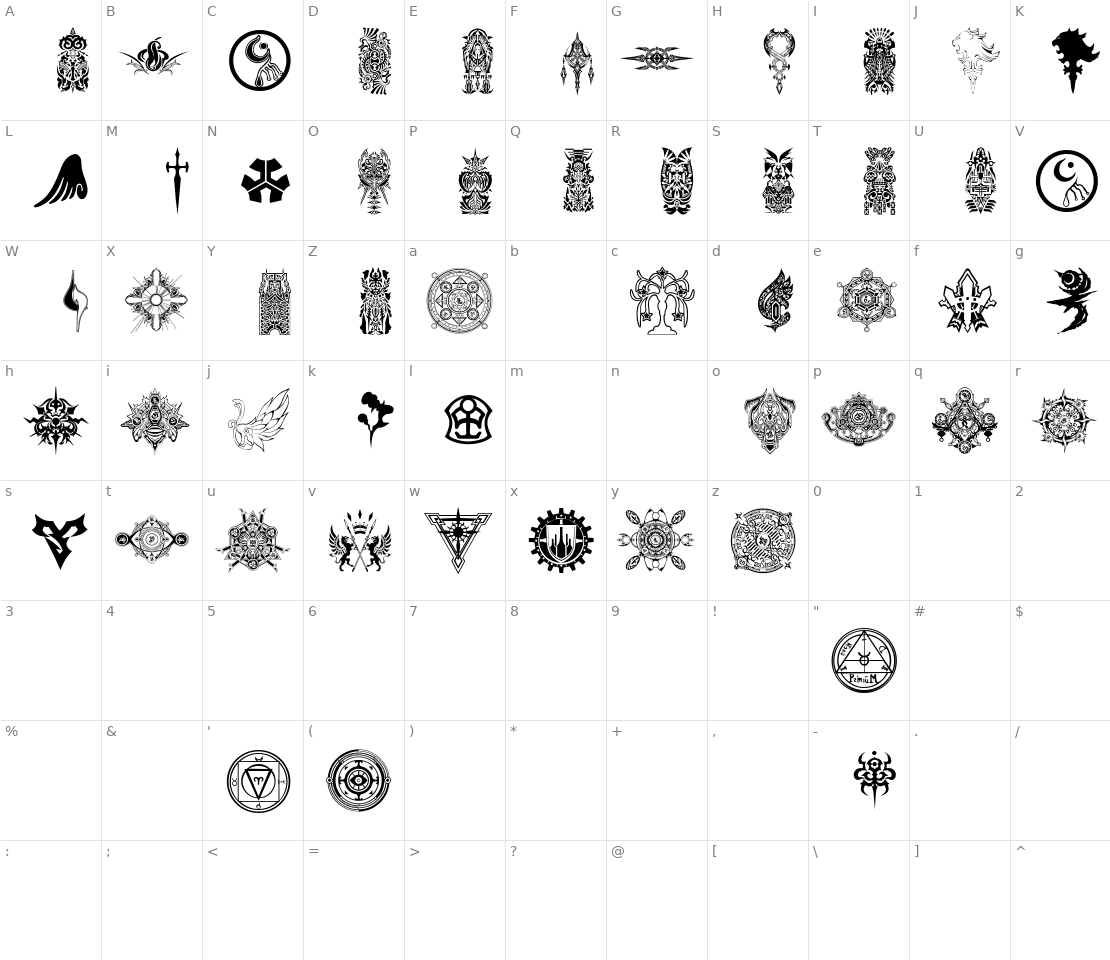
Final Fantasy Symbols
Final Fantasy Symbols is a decorative icon font by hechicero that collects ornamental glyphs and symbols inspired by the long-running RPG series. Rather than traditional letterforms, it offers a set of medieval-flavored icons and decorative elements pulled from the visual language of fantasy gaming. Useful for fan projects, game UI mockups, and themed design work where you need that specific RPG atmosphere without drawing everything from scratch.